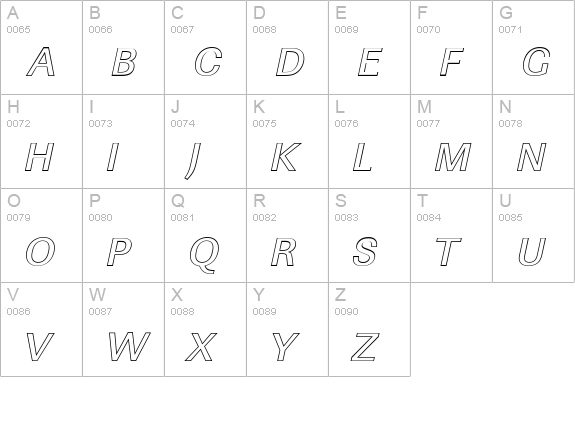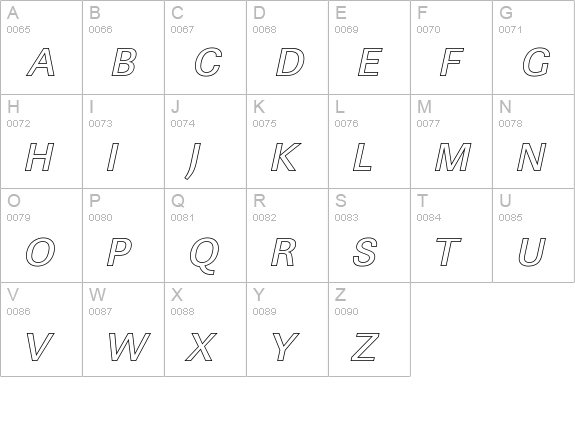
LinearOu-Medium-Italic is a balanced, medium-weight, italic variant in the LinearOu typeface family \xE2\x80\x94 well suited to sub-headlines, navigation, and balanced editorial work.
Introducing LinearOu-Medium-Italic font, a sleek and modern typeface that exudes elegance and sophistication. With its clean lines and subtle curves, this font is perfect for adding a touch of style to any design project. The italic style of LinearOu-Medium-Italic adds a dynamic flair, making it ideal for both headings and body text. What sets LinearOu-Medium-Italic apart is that it is offered for free, allowing designers and creatives to access high-quality typography without any cost. This versatile font can be used in a variety of projects, from branding and advertising to editorial design and web graphics. To get your hands on LinearOu-Medium-Italic, simply visit FontsMarket.com and download it for free today. Elevate your designs with this sophisticated and contemporary font choice.